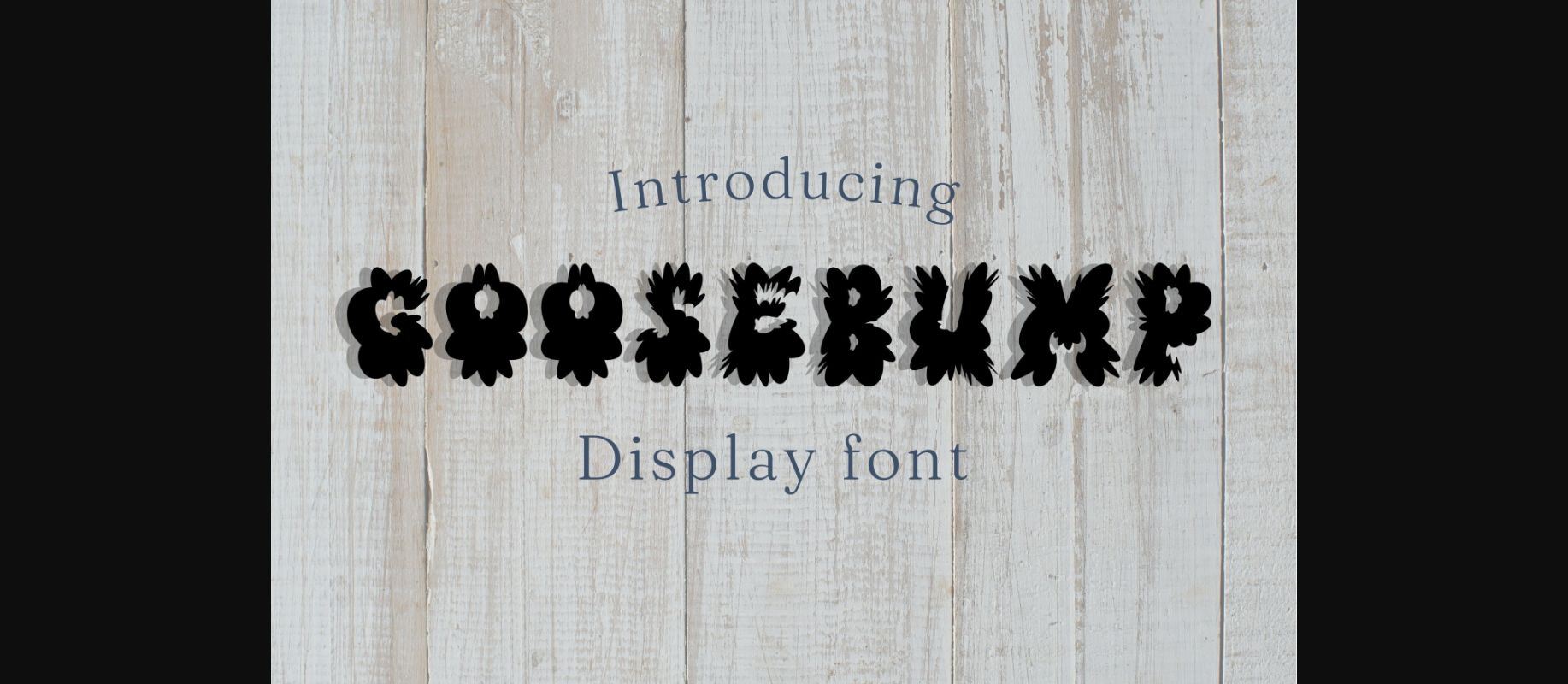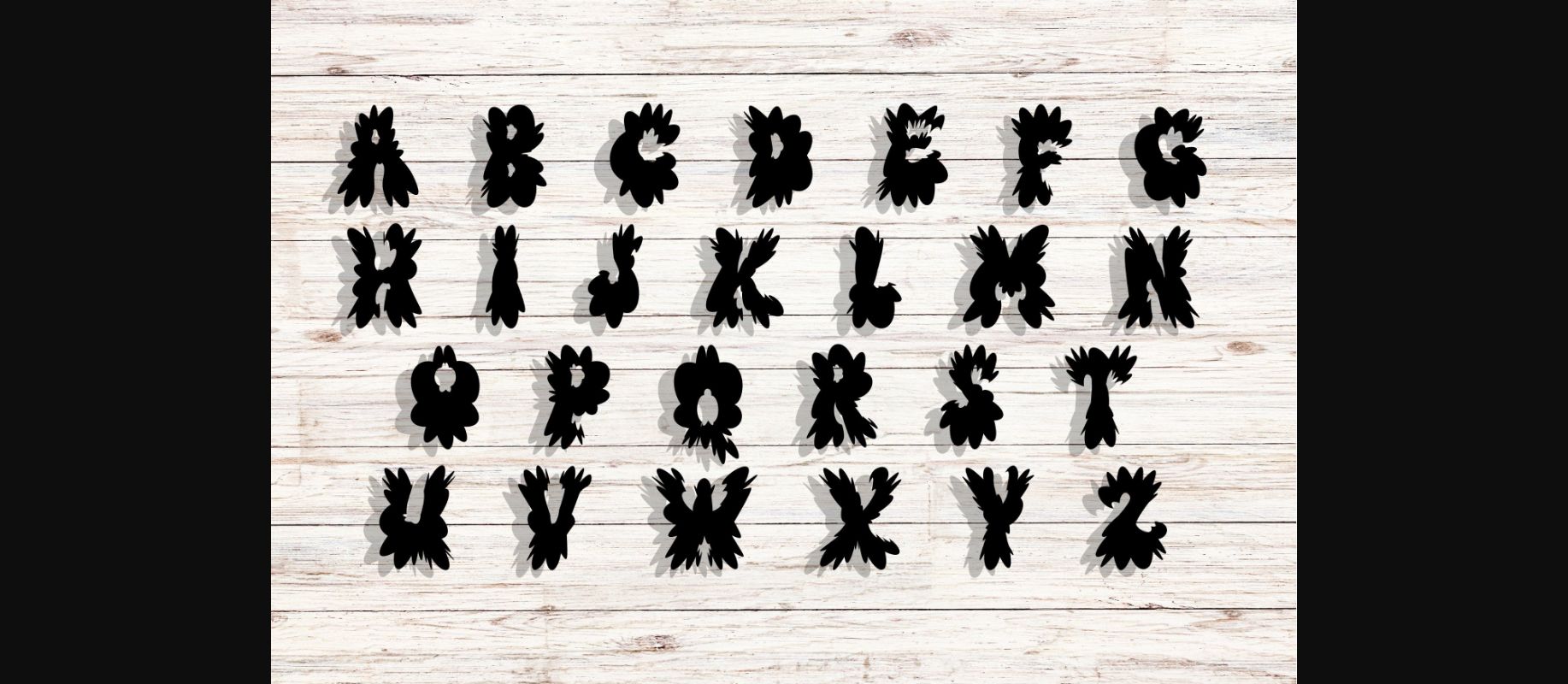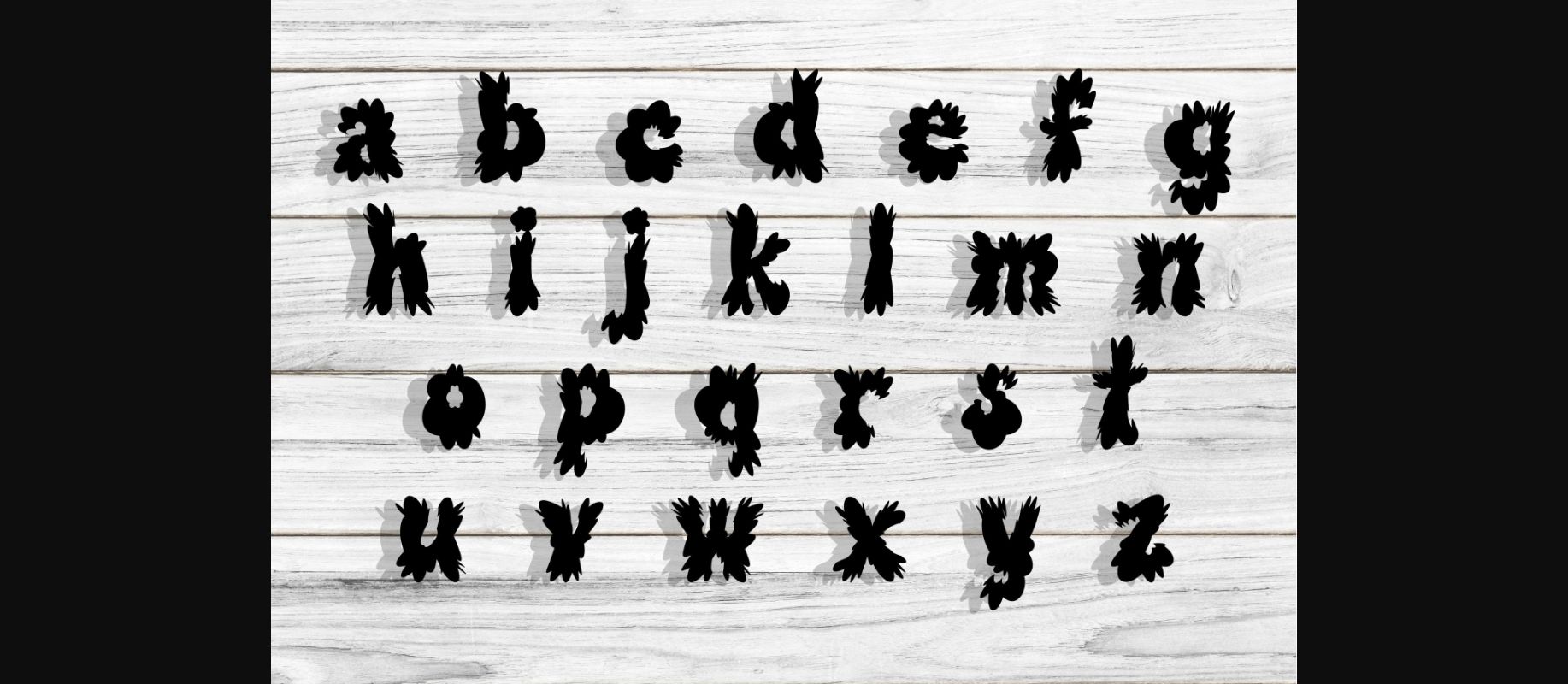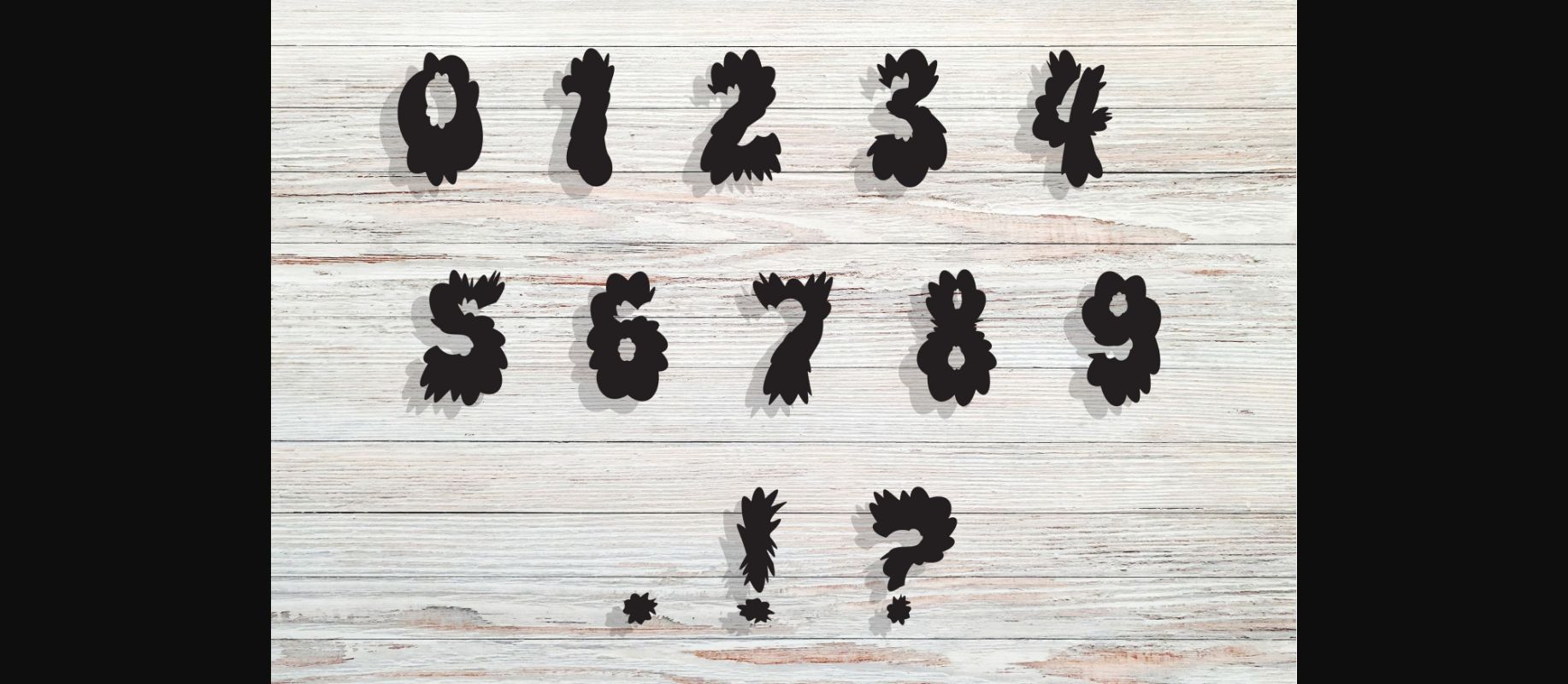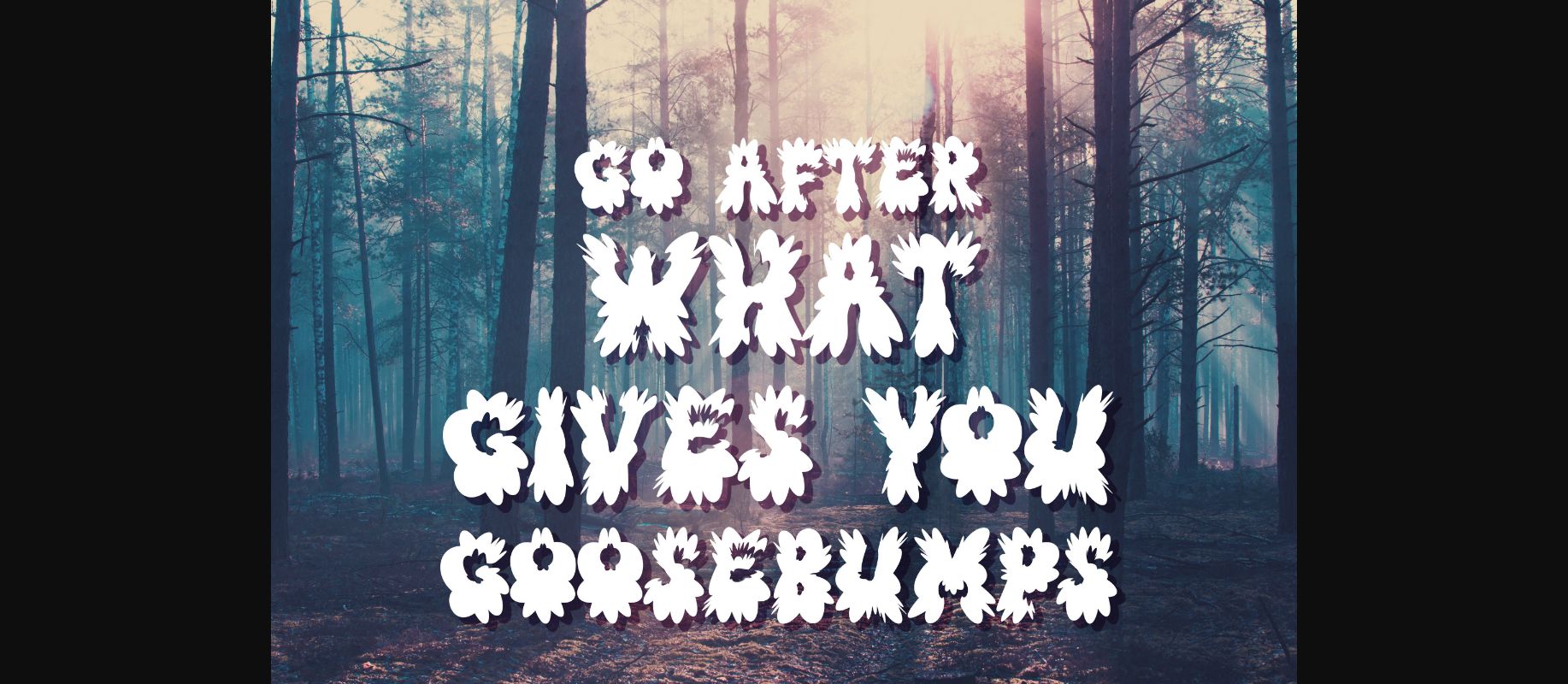
Goosebump Font
About Goosebump Font
Goosebump is a unique decorative font with a stunning, maybe creepy look. It is suitable for Halloween, the title for horror books, or wording designs for products like mugs or shirts.
This typeface will be a fantastic addition to your library of fonts, regardless of the subject, as it has the ability to improve any design.